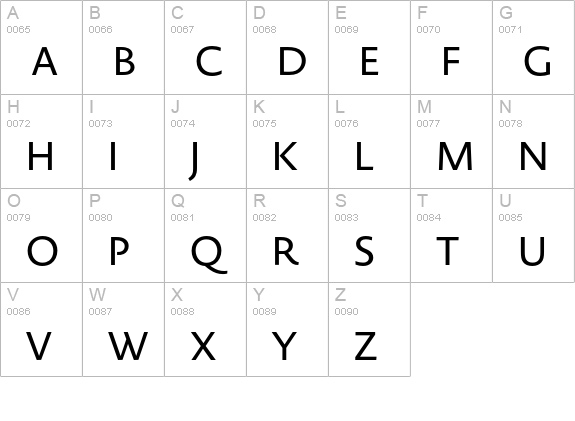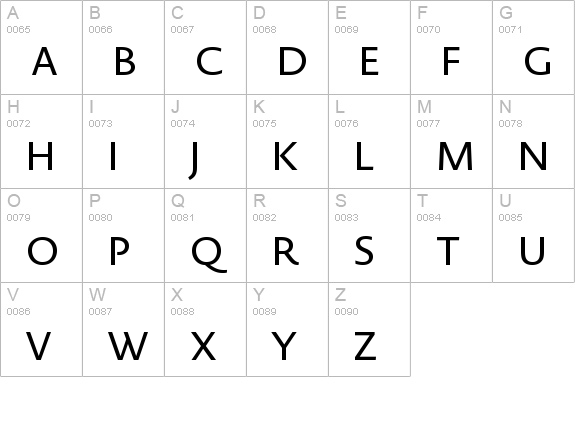
Novel Sans Pro is a versatile and elegant typeface that exudes a modern yet timeless appeal. With its clean lines and balanced proportions, this font is perfect for a wide range of design projects, from editorial layouts to branding and packaging. The versatility of Novel Sans Pro makes it a popular choice among designers looking for a sleek and sophisticated typeface that can adapt to various styles and moods. The free version of Novel Sans Pro is available for download at FontsMarket.com, making it accessible to designers and creatives of all levels. Whether you're working on a personal project or a client's brief, this font offers a high-quality solution that will elevate your designs and help you achieve professional results. Embrace the beauty and functionality of Novel Sans Pro in your next project and experience the impact of a well-crafted typeface that stands out from the crowd.